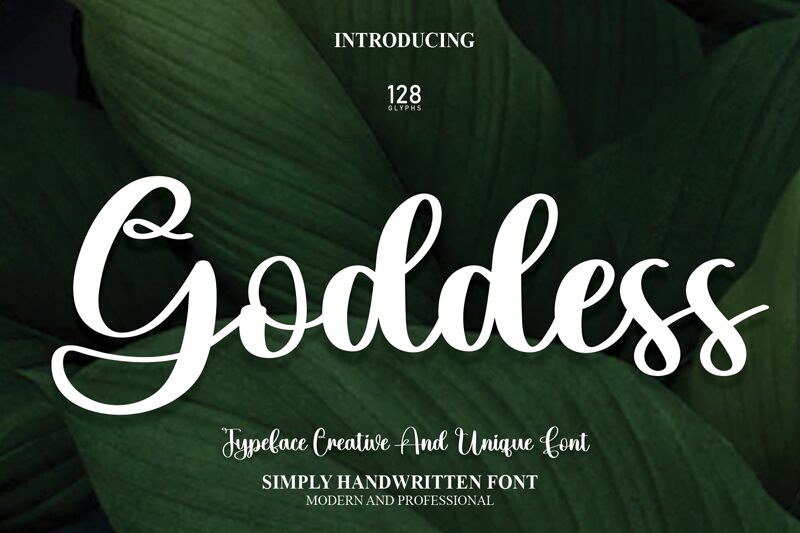
Goddess
Goddess, designed by Scratchones, brings the effortless elegance of casual calligraphy to your fingertips. With its fluid curves and natural stroke variation, this font infuses a personal touch into every design. Perfect for invitations, branding, and social media graphics, Goddess offers versatility with a bespoke feel. Its charm lies in its ability to make each project feel intimately crafted—ideal for creators seeking a blend of sophistication and approachability.
Embrace the unique flair of Goddess to elevate your creative endeavors with style.
the latest style letters are perfect for wall displays, wedding invitations, social media post logos,
advertisements, product packaging, product designs, labels, photography, watermarks, invitations, stationery, and any project that requires taste handwriting.